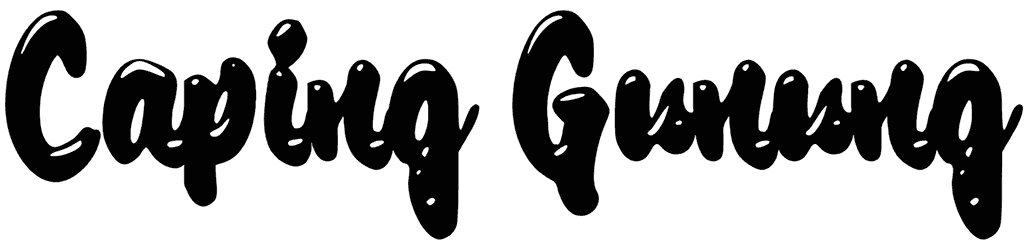
c Caping Gunung Font
Would you love to display your context with a bulky and soft face? You can have this style with c Caping Gunung as a handwritten font. You can place this bubble font on your creative projects, for example, planners, invitation designs, postcards, mugs, or the like, and bring a unique and cheerful mood.